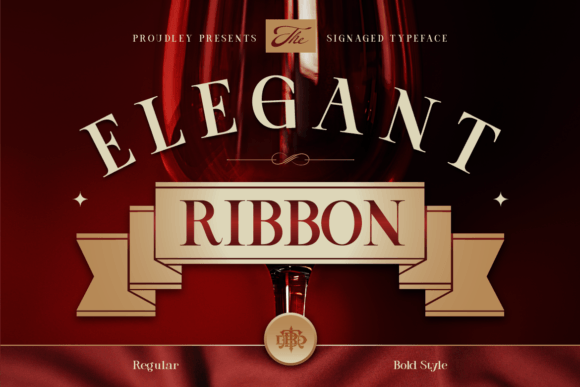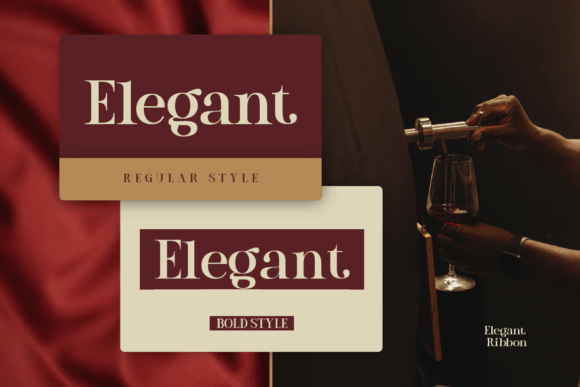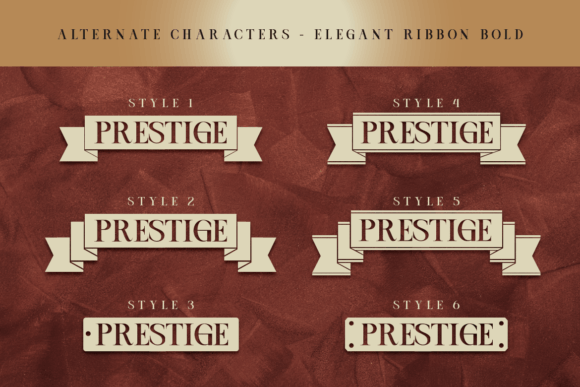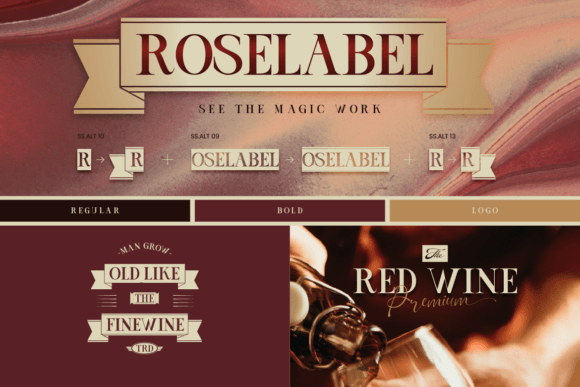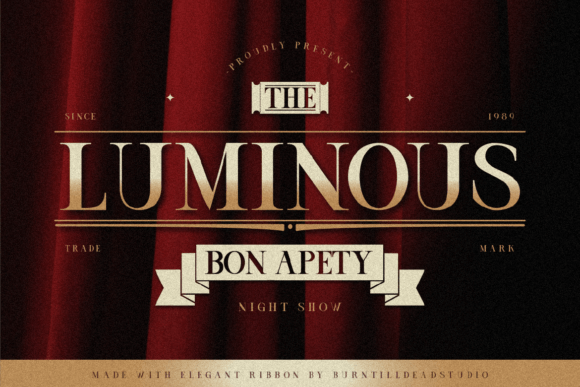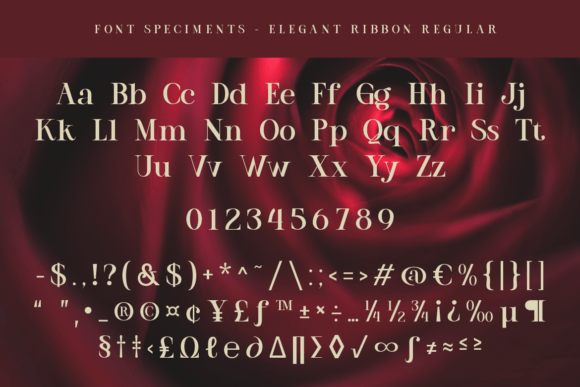
Introduction to Elegant Ribbon Font
As you’re about to embark on a new creative project, have you ever felt like you’re missing that perfect finishing touch to elevate your design? The moment of truth arrives when you’re deciding on the perfect font to convey your message. This is where the Elegant Ribbon Font comes into play, adding a touch of elegance and sophistication to every occasion.
With its bold and clear design elements, this serif typeface is sure to grab attention in large displays, making it a valuable resource for designers. Whether you’re creating an advertisement, event promotion, or social media post, the Elegant Ribbon Font is the perfect addition to make your design stand out.
Not only is it eye-catching, but it’s also incredibly versatile, allowing you to convey a range of emotions and messages through its unique design elements. And the best part? It’s available for free download, making it an accessible design resource for creatives of all levels.
Key Features of Elegant Ribbon Font
- Unique, hand-drawn design perfect for creative projects, adding a touch of elegance and sophistication.
- Perfect for use in graphic design, digital art, and other creative fields, where a touch of elegance and sophistication is required.
Honest Review: Elegant Ribbon Font
I recently came across the Elegant Ribbon Font, and I must say it’s a beautiful addition to any creative project. The font is designed to resemble a delicate ribbon, perfect for adding a touch of elegance to your designs.
What works well about this font is its versatility. It can be used for a variety of projects, from wedding invitations to packaging design. The font also includes a transparent background option, making it easy to place over any image or background.
Here are some of the features that make the Elegant Ribbon Font a valuable design resource:
- Perfect for adding a touch of elegance to your designs
- The font may not be suitable for projects that require a bold, statement font
Overall, I’m impressed with the Elegant Ribbon Font. It’s a high-quality design resource that’s perfect for adding a touch of elegance to your creative projects.
Tips for Getting the Most Out of the Elegant Ribbon Font
For the best results, use the Elegant Ribbon Font in conjunction with other high-quality design elements. Experiment with different font sizes, colors, and styles to create a unique and eye-catching design. You can also use the font in combination with a free download background or texture to add depth and interest to your design.
The Elegant Ribbon Font is perfect for a variety of design projects, including wedding invitations, birthday cards, and party decorations. Its elegant and sophisticated design makes it ideal for any creative project that requires a touch of class and sophistication.